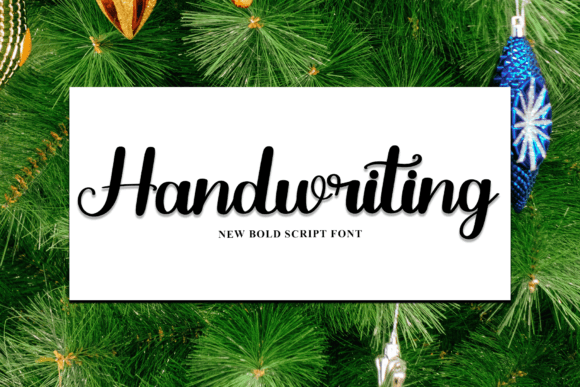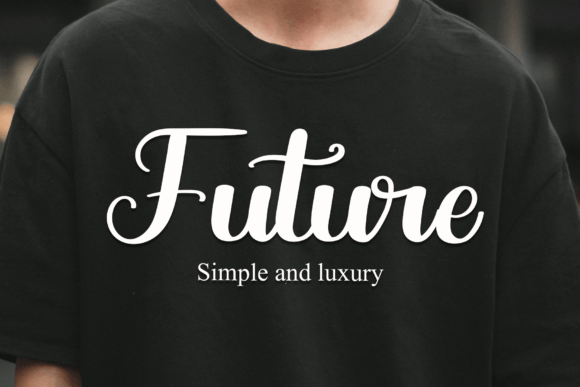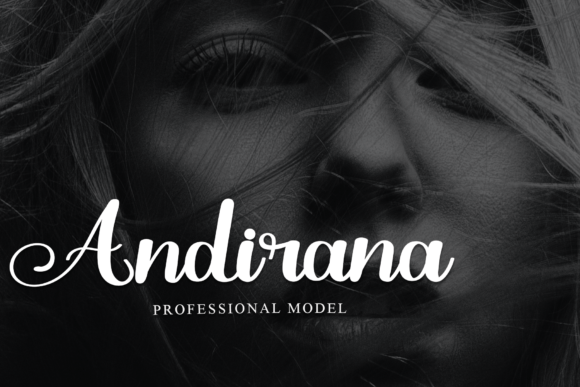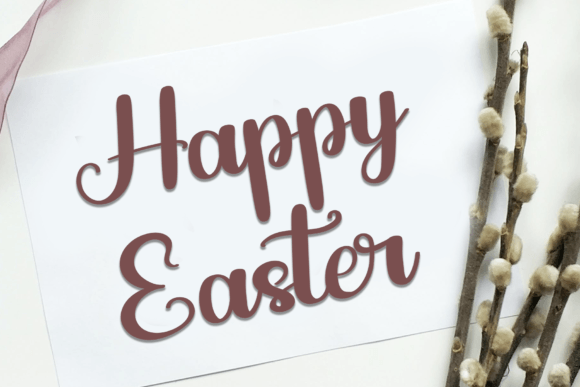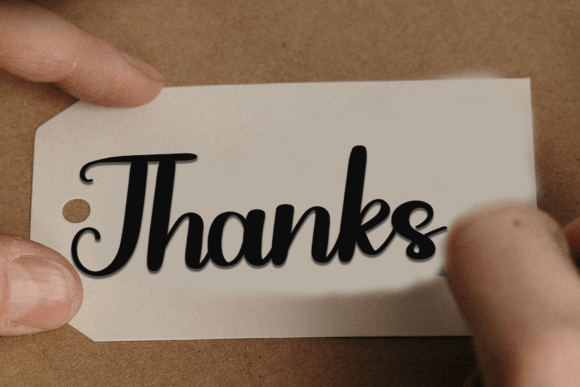
Introduction to Christmas Alternate Font
As a designer, there’s nothing quite like the thrill of creating a project that captures the magic of the holiday season. You’re pouring over your computer, searching for the perfect font to bring your vision to life. And then, it hits you – the perfect font to set the tone for your merry masterpiece: the Christmas Alternate Font. This delightful typeface is more than just a pretty face; it’s a design resource that adds a touch of whimsy and wonder to your work.
Key Features of Christmas Alternate Font
- High-quality design resource perfect for creative projects, including holiday cards, gift tags, and more.
- Unique, festive design elements, such as holly leaves, snowflakes, and Christmas trees, add a touch of holiday magic to your projects.
Honest Review: Christmas Alternate Font
I recently stumbled upon the Christmas Alternate Font while searching for a design resource to spice up my holiday-themed projects. I was pleasantly surprised by the high quality of the font, which features a beautiful, festive design.
- What works well: ✨ The font’s versatility is another strength – it can be used for a wide range of creative projects, from invitations and greeting cards to social media graphics and website headers.
However, there are a few limitations to consider: ⚠️ The font may not be suitable for all design styles, and some users may find the design a bit too ornate or over-the-top. Additionally, the font’s transparency can sometimes make it difficult to read, especially on dark backgrounds.
Overall, I’m impressed with the Christmas Alternate Font. While it may not be perfect for every design project, it’s a great resource for designers looking to add a touch of holiday magic to their work. With its high quality and versatility, it’s definitely worth considering for your next creative project.
Christmas Alternate Font
Christmas Alternate Font is a unique design resource perfect for adding a festive touch to your creative project. With its transparent background, you can easily integrate it into your design without any background distractions.
To get the most out of Christmas Alternate Font, use it in combination with other festive design elements, such as holly leaves, snowflakes, or candy canes. You can also use it to create a custom holiday logo or branding for your business.
Christmas Alternate Font is perfect for a variety of creative projects, including holiday cards, gift tags, social media posts, and even website headers. Its high-quality design and transparent background make it a versatile and useful design resource.